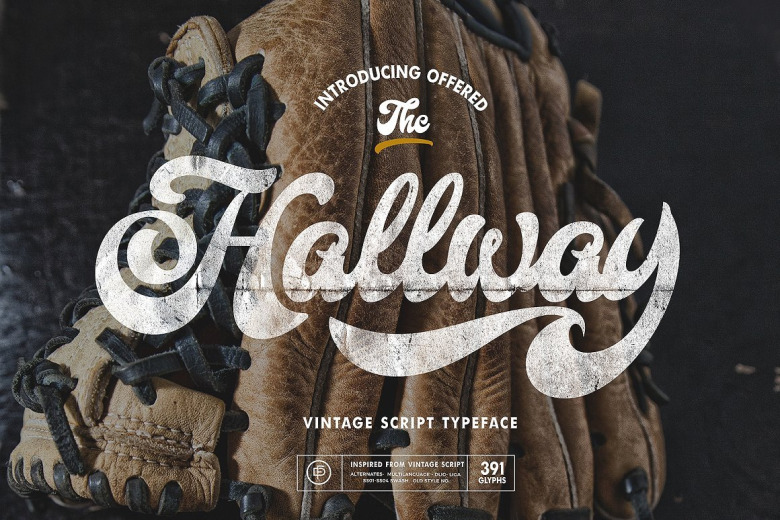
Hallway Font
This is a bold script font that carries the vintage feel. It’s designed and shared by Fortunes Co. This font is perfect for adventure or classic feeling sport, sign painting, labeling, suitable for logo, product names packages, labels, old fashioned coffee shops, bars and everything with specific characteristics of past times.